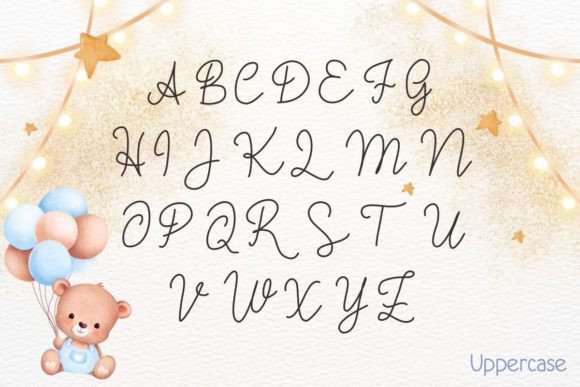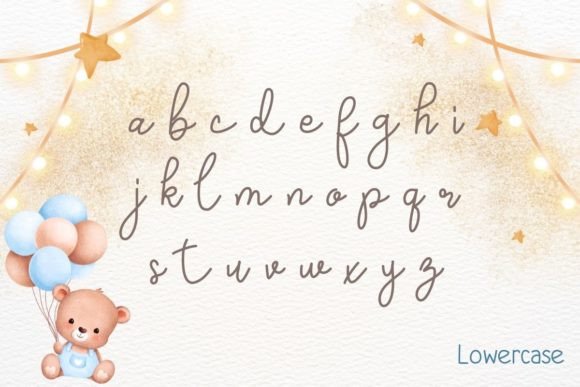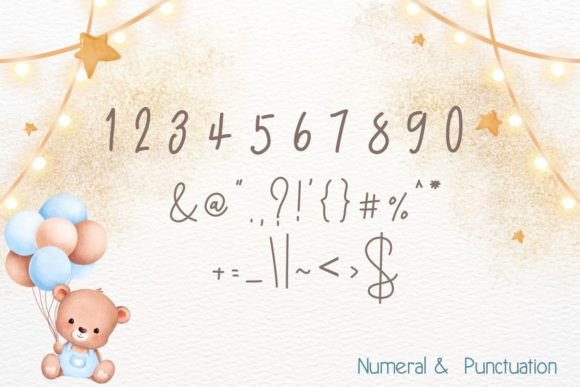
Introduction to Gentle Boy Font
Gentle Boy is a cute and friendly handwritten script font.
This font is characterized by thin italic characters and continuous lines You can use it to create birthday cards, wedding invitations, beautiful art, social media posts, and more.